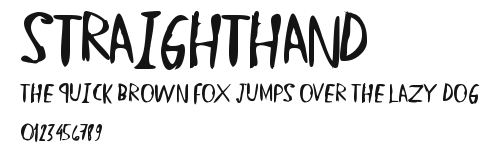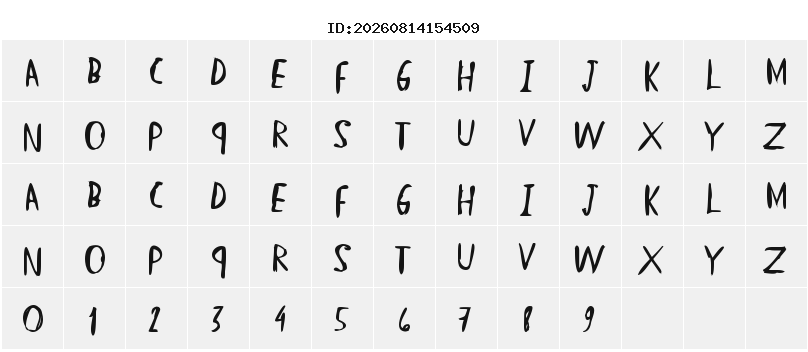
StraightHand Preview
• Font Name: StraightHand
• Font ID: StraightHand:Version 1.00
• Full Font Name: StraightHand
• Version: Version 1.00 August 6, 2012, initial release
• PostScript Name: StraightHand
• Character Count: 64
• Designer: Max Infeld
• Manufacturer: Xerographer Fonts
• Description: Made in Chico,CA
About StraightHand.ttf
StraightHand.ttf is a modern, elegant sans-serif font designed for ultimate readability and visual harmony. Perfect for branding, headlines, web design, and print materials.